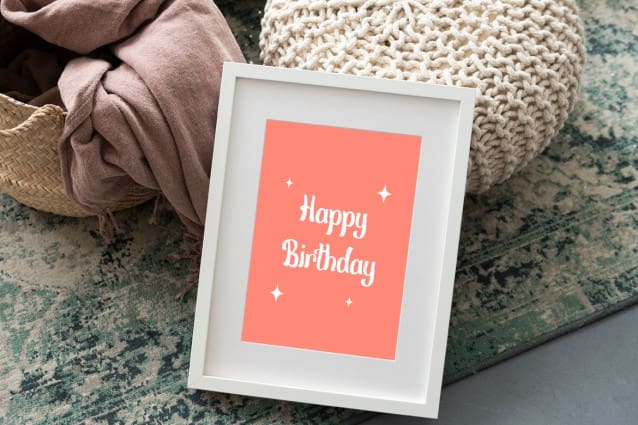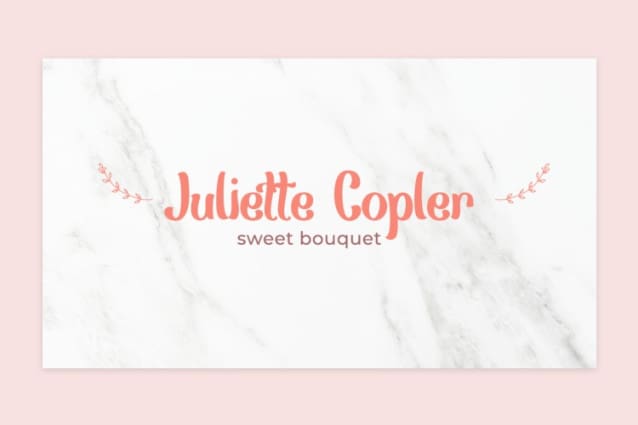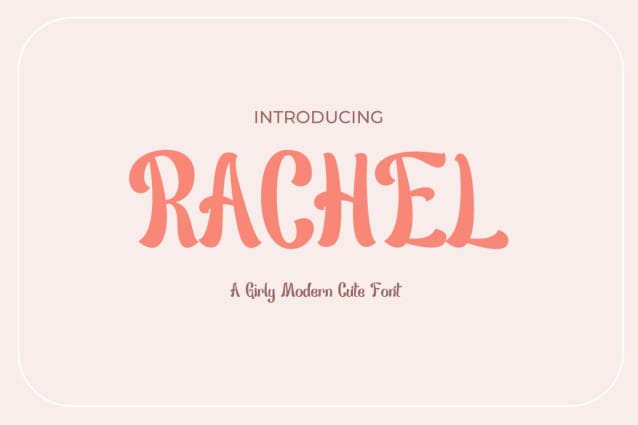
Rachel Display Font
Rachel Display Font a captivating handwritten font bursting with personality. Its playful script adds a touch of whimsy to any design, making it perfect for logos, quotes, invitations, posters, and more. Imagine your greetings sparkling with charm, your packaging standing out with unique flair, and your branding exuding a friendly, heartfelt touch.
Rachel’s versatility knows no bounds. Use it for blog headlines that grab attention, event invitations that entice, or advertising that resonates with warmth. Whether you’re crafting social media posts, website banners, or product labels, Rachel’s playful spirit will add a smile to your designs.